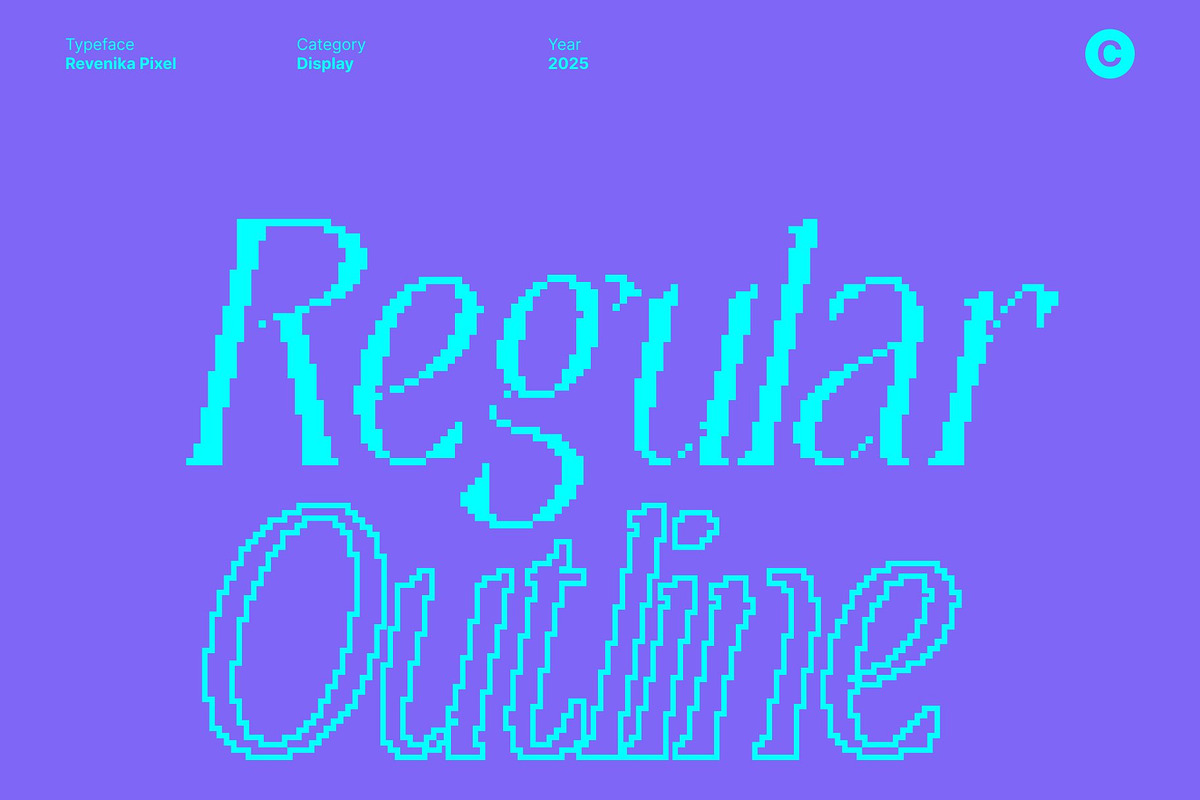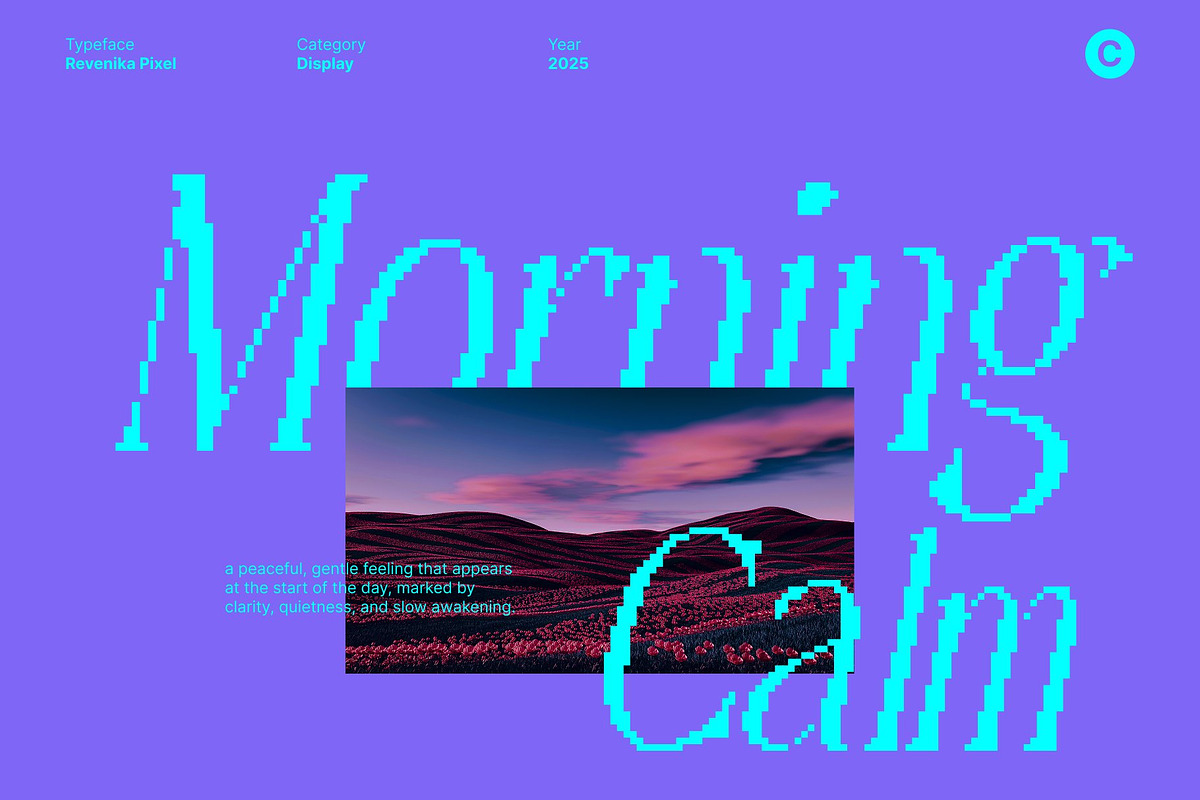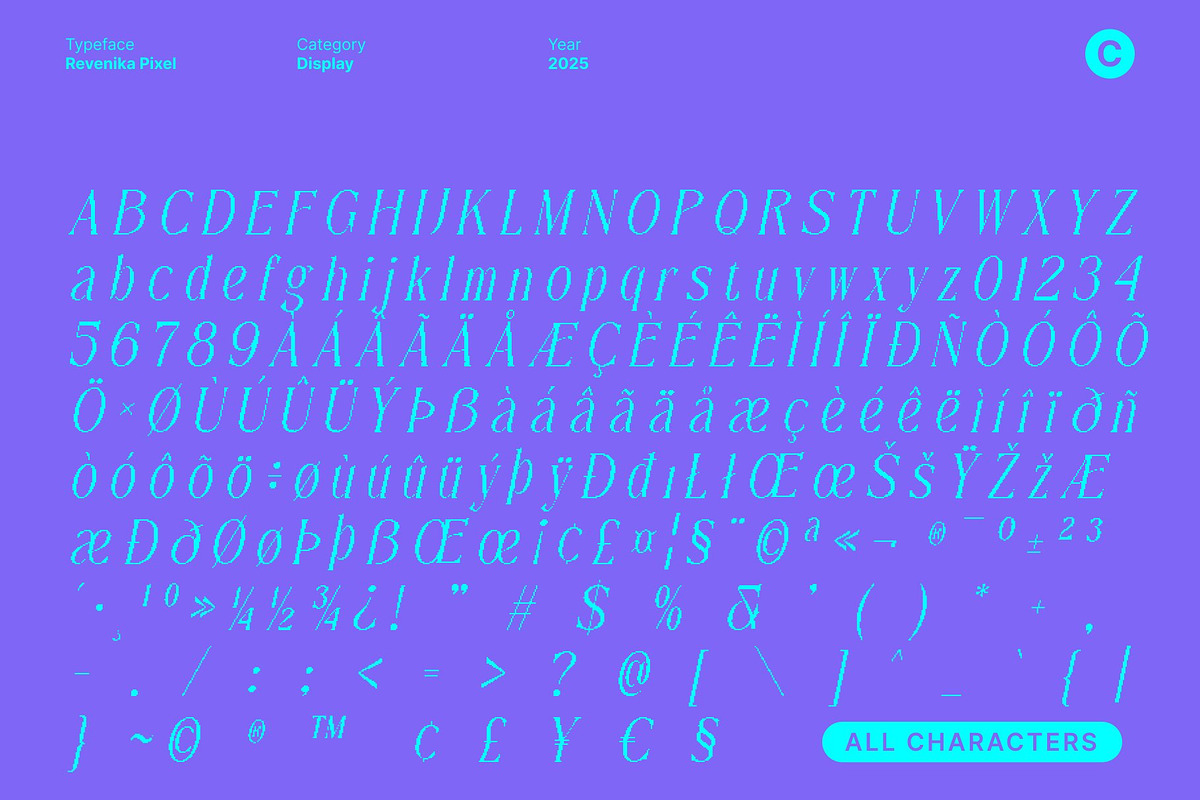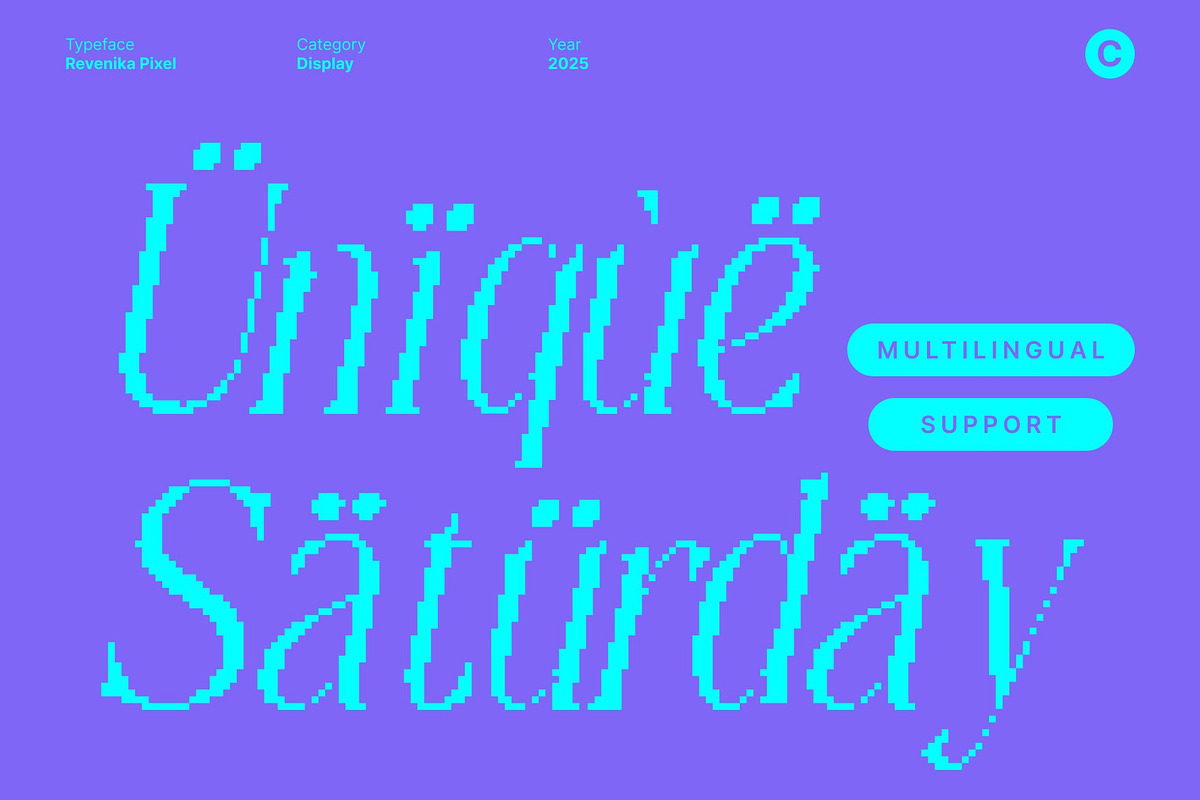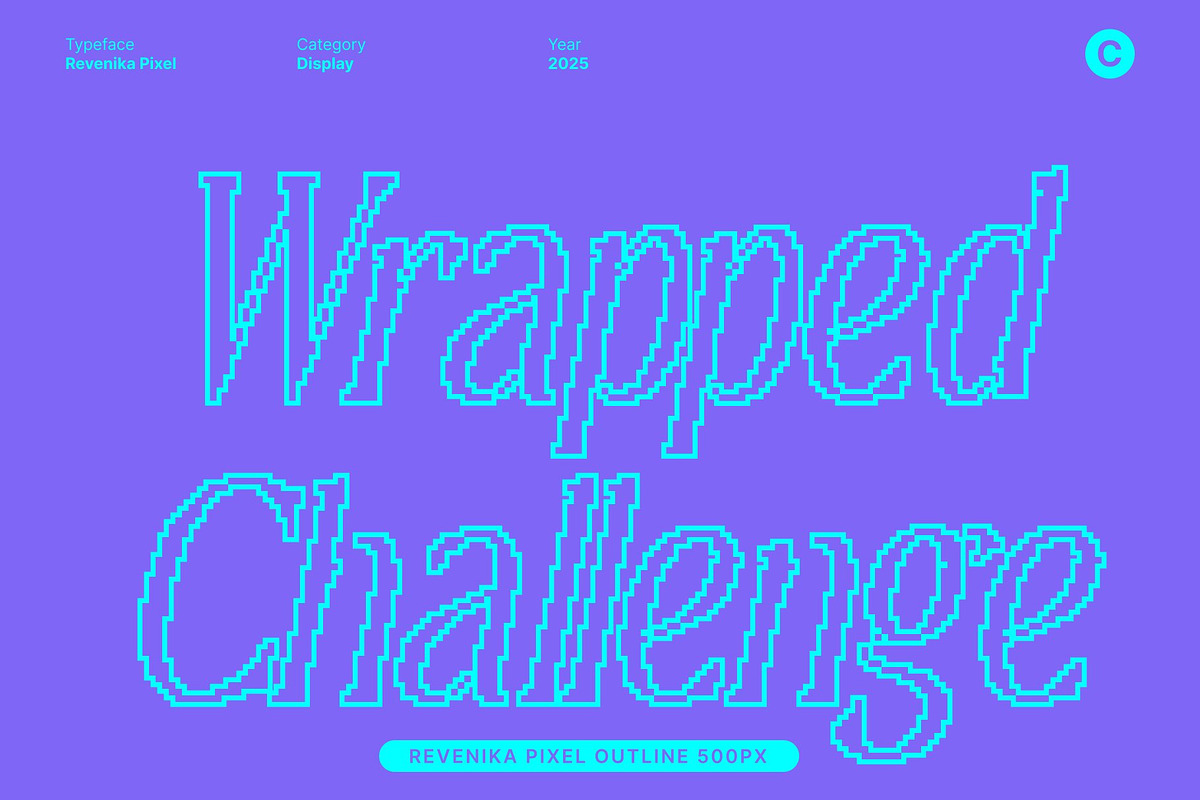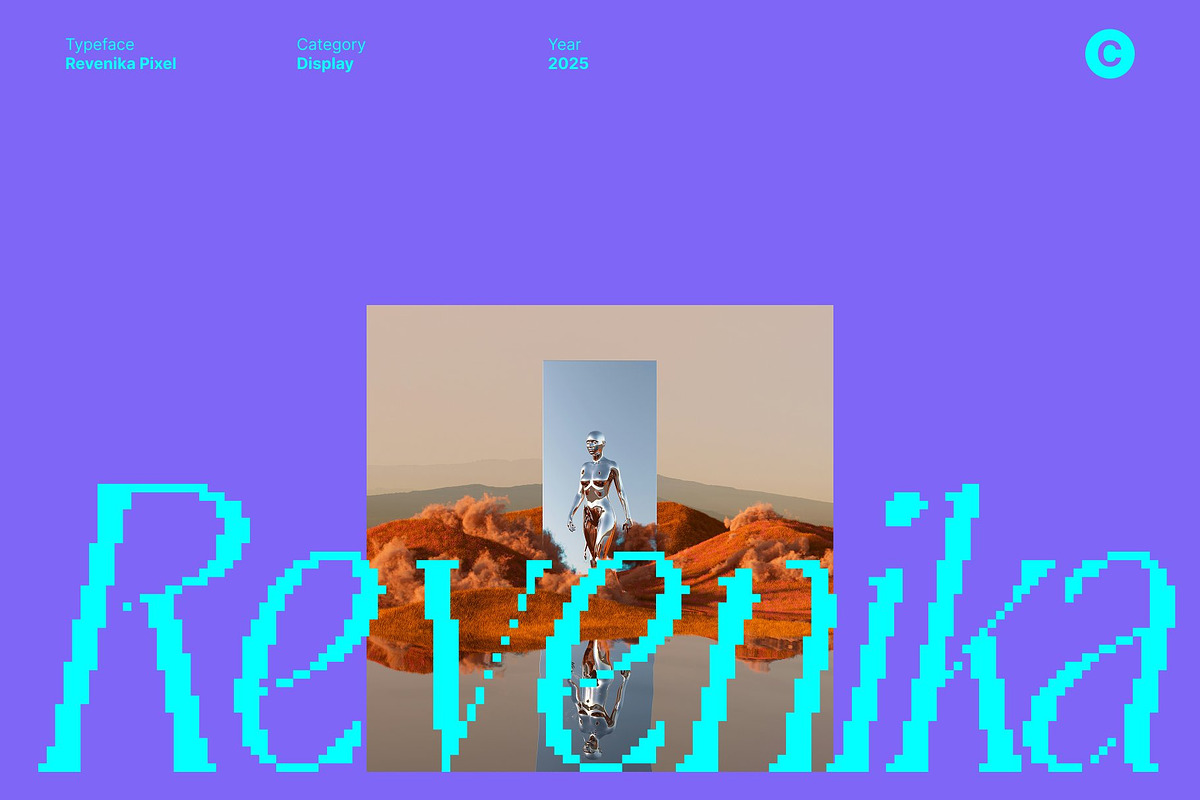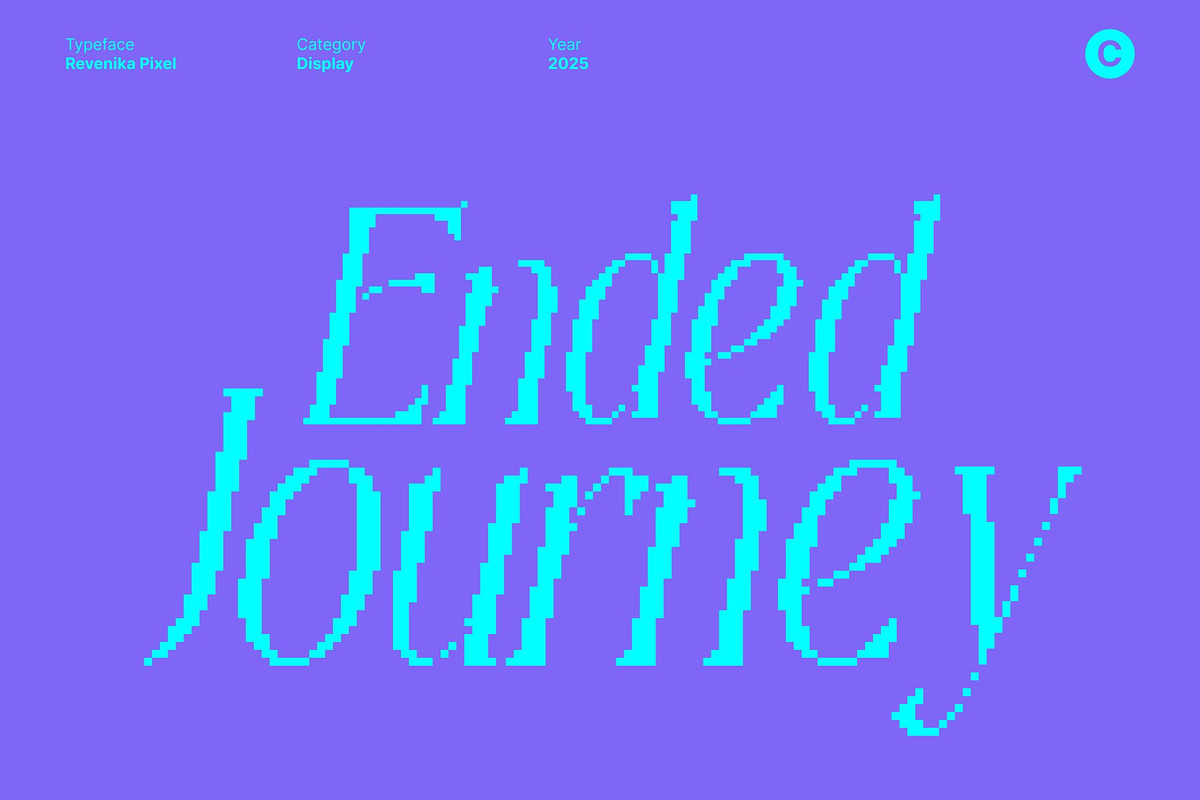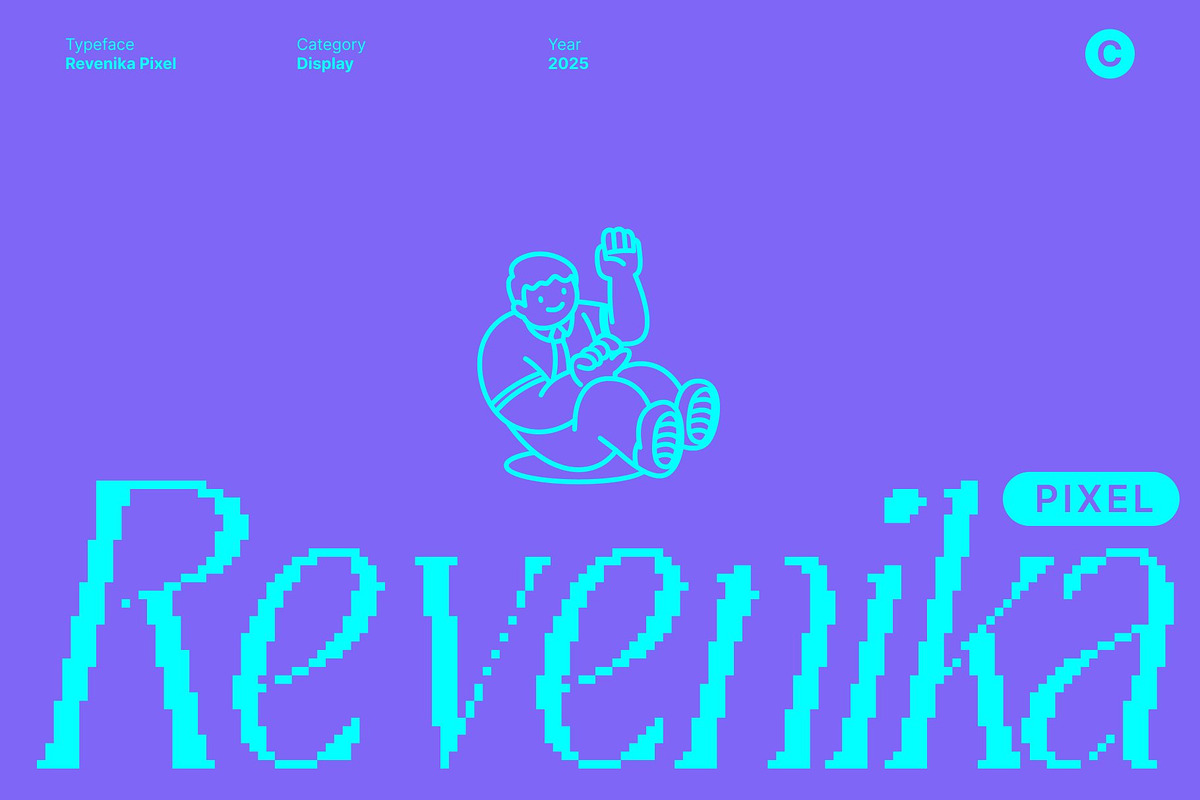
Revenika Pixel
Revenika Pixel – Elegant Pixel Serif Display Font
Elegance Refined Through Pixel Precision This is an elegant serif display font that blends refined curves with a distinctive pixel-styled construction, creating a perfect balance between sophistication and digital charm. Designed for creators who want something luxurious yet modern, this font elevates any layout with its graceful, elongated details and stylish serif forms.
Elongated Details for a High-End Aesthetic Experience the beauty of elongated strokes and carefully sculpted letterforms, crafted to bring a premium, editorial feel to your designs. These refined structures introduce a sense of exclusivity, making stand out in both contemporary and classic-themed visuals. The elegant serif anatomy ensures every title, headline, and logo appears polished and impactful.
Pixel Style with a Unique Twist What sets this font apart is its precise pixel-style detailing. Instead of leaning fully into retro gaming aesthetics, this font merges pixel texture with modern elegance, creating a fresh and unexpected personality. The pixelation adds depth, artistic character, and a slightly experimental feel perfect for designers seeking a unique statement piece.
Perfect for Luxury Branding and Editorial Use This font is your go-to choice for luxury branding, stylish editorials, upscale visual identities, and creative pixel-themed designs. Its sophisticated atmosphere makes it ideal for fashion look books, boutique brand logos, magazine layouts, packaging, and digital art concepts.
- Revenika Pixel Regular
- Revenika Pixel Outline